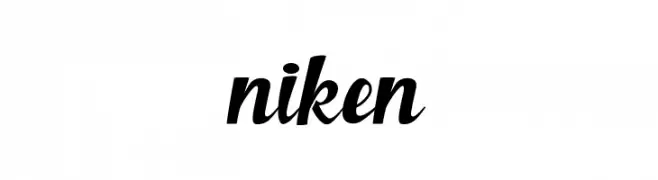
A bold, dynamic script font with a lively and energetic style.
A playful and elegant script font with flowing, interconnected letters.
A playful, handwritten font with smooth, rounded strokes and a lively appearance.
A geometric, hollow font with a modern and futuristic design.
A bold, distressed font with an eroded, industrial look.
A bold, expressive script font with a lively handwritten style.
An elegant script font with flowing, cursive strokes and ornate uppercase letters.
A graceful script font with flowing, connected letters and elegant flourishes.
A highly stylized, decorative script font with sharp, angular strokes and dramatic flourishes.
A modern, handwritten script font with a casual and flowing style.